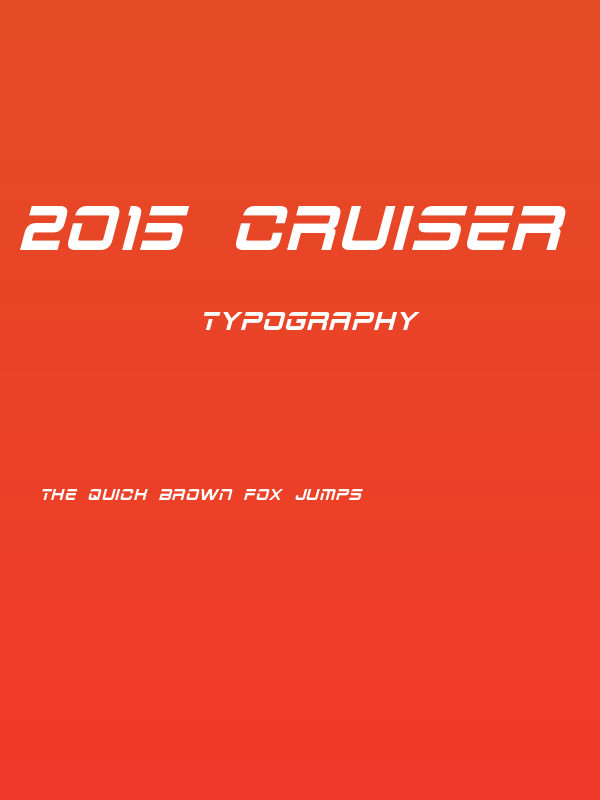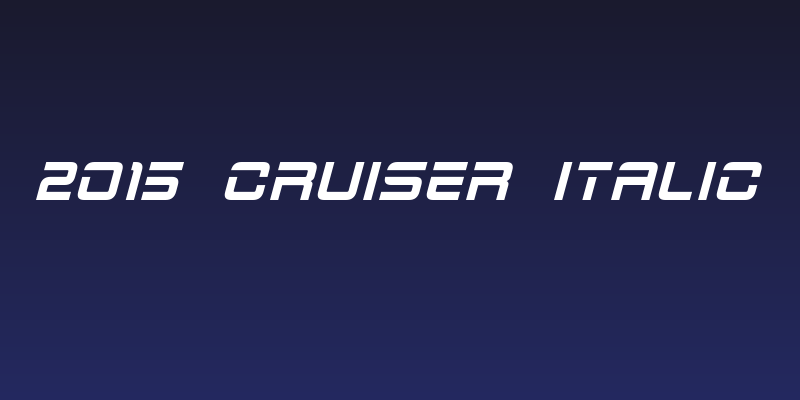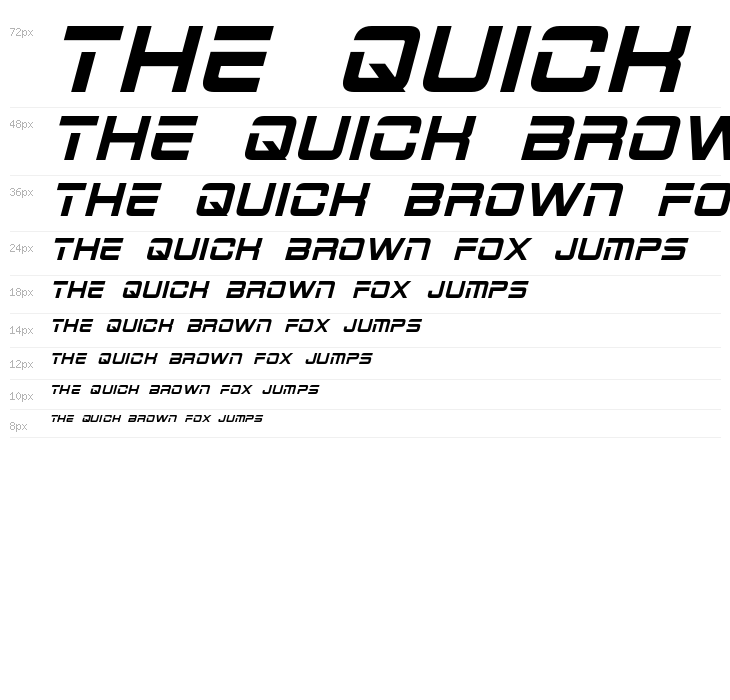
2015 Cruiser Italic Font
2015 Cruiser Italic Description
This font features a sleek, italicized design with a modern and futuristic appeal. The characters are slightly slanted, giving a sense of motion and dynamism. The strokes are consistent in thickness, providing a uniform appearance across all characters. The font maintains a geometric structure with sharp angles and clean lines, making it ideal for contemporary designs. The numbers and special characters follow the same stylistic approach, ensuring cohesion throughout. Its distinctive style is suitable for projects that require a bold and forward-thinking aesthetic.
| Proposed Projects | Ideal for automotive branding, tech company logos, sports team merchandise, and futuristic-themed posters. |